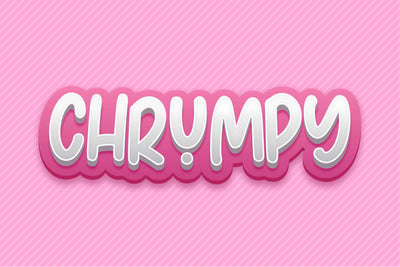
Chrumpy - Fun Display Font
Chrumpy is a fun and playful display font featuring bold letters. It will add a fun and playful feel to any arts and crafts project! Fall in love with its incredibly adaptable style and use it to create gorgeous designs!